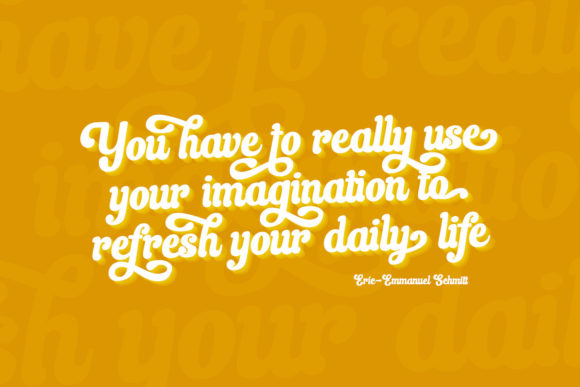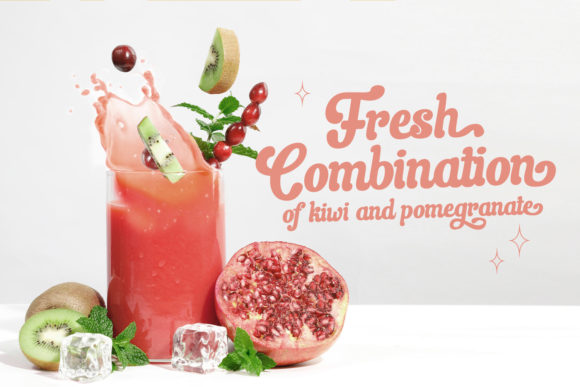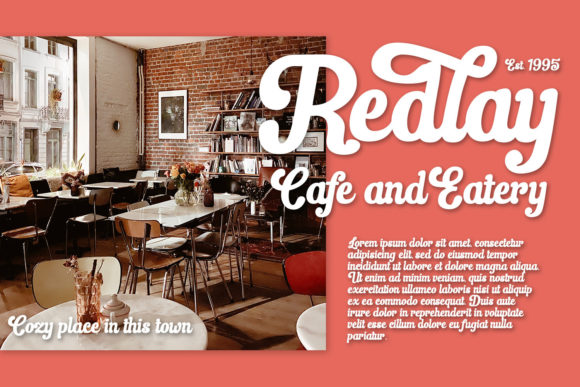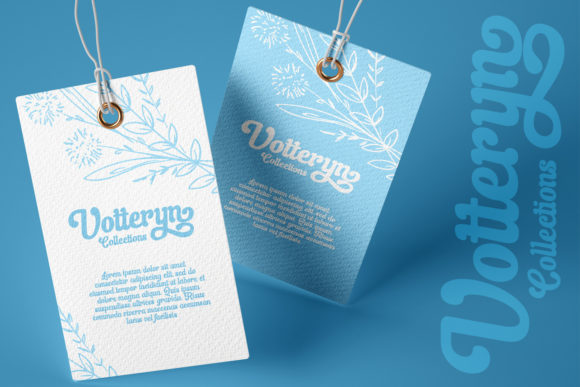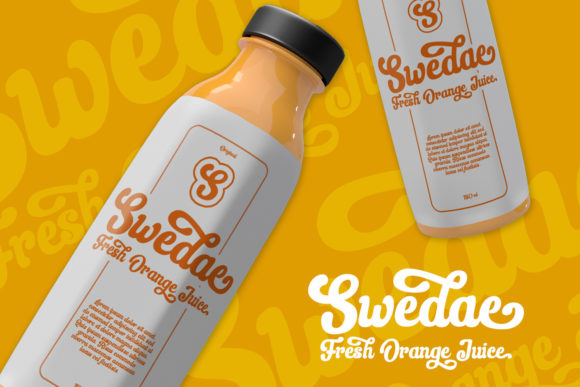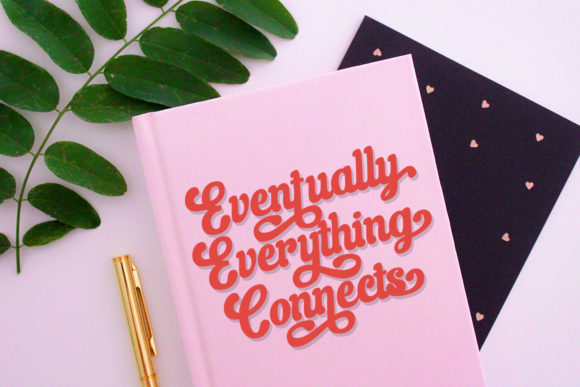
Cold Daylight Font: Elevate Your Designs with a Bold and Modern Handwritten Style
Are you looking for a font that can add a touch of playfulness, cheerfulness, and style to your designs? Look no further than Cold Daylight Font! This bold and modern handwritten font is perfect for designers and crafters who want to create unique and eye-catching projects. In this article, we’ll dive into the features and benefits of Cold Daylight Font, and explore how you can use it to take your designs to the next level.
What is Cold Daylight Font?
Cold Daylight Font is a modern handwritten font that is designed to make a statement. Its bold and playful characters are perfect for creating eye-catching headlines, titles, and text that demands attention. The font is carefully crafted to convey a sense of cheerfulness and style, making it ideal for designers and crafters who want to add a personal touch to their projects.
Key Features of Cold Daylight Font
Cold Daylight Font comes with a range of features that make it a versatile and user-friendly font. Some of its key features include:
- Bold and modern design: Cold Daylight Font has a bold and modern design that is perfect for creating eye-catching text.
- Handwritten style: The font has a handwritten style that adds a personal touch to your designs.
- Unique characters: The font has a range of unique characters that can be used to create a distinctive look.
Benefits of Using Cold Daylight Font
Cold Daylight Font offers a range of benefits for designers and crafters. Some of the benefits of using this font include:
- Adds a touch of playfulness and cheerfulness: Cold Daylight Font can add a touch of playfulness and cheerfulness to your designs, making them more engaging and eye-catching.
- Perfect for a range of projects: The font is versatile and can be used for a range of projects, from branding and advertising to packaging and signage.
- Unique and distinctive look: The font has a unique and distinctive look that can help your designs stand out from the crowd.
- Get creative: Use Cold Daylight Font to create unique and eye-catching text that adds a touch of playfulness and cheerfulness to your designs.
Design Ideas Using Cold Daylight Font
Cold Daylight Font is a versatile font that can be used for a range of design projects. Here are some design ideas to get you started:
- Branding and advertising: Use Cold Daylight Font to create eye-catching headlines and titles for your branding and advertising campaigns.
- Packaging design: Add a touch of playfulness and cheerfulness to your packaging design with Cold Daylight Font.
- Signage: Use Cold Daylight Font to create eye-catching signage that demands attention.
- Social media graphics: Use Cold Daylight Font to create engaging social media graphics that stand out from the crowd.
| Author | nathatype |
Cold Daylight Font is a bold and modern handwritten font that is perfect for designers and crafters who want to add a touch of playfulness, cheerfulness, and style to their designs. With its PUA encoding and range of unique characters, this font is easy to use and can be incorporated into a range of design projects. Whether you’re working on branding and advertising campaigns, packaging design, signage, or social media graphics, Cold Daylight Font is a versatile font that can help you achieve your design goals.